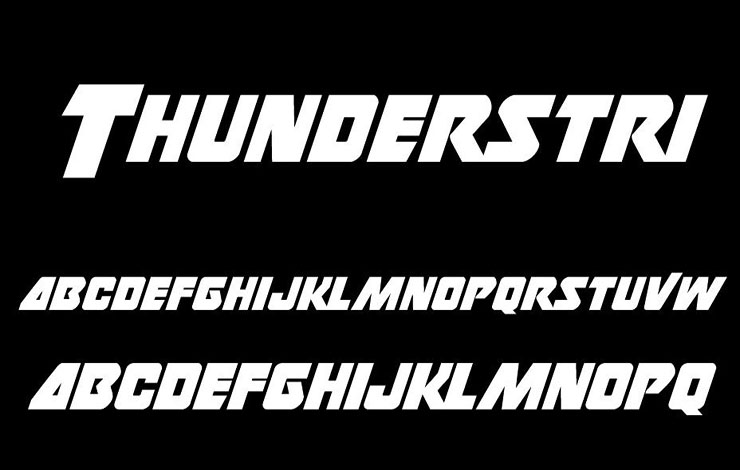
Thunderstrike Font is a popular techno sci-fi typeface designed by Iconian Fonts. It is a versatile font family that comes in eight different styles, making it suitable for a wide range of design projects.
The font’s futuristic and edgy style makes it particularly popular for projects related to science fiction, technology, and gaming.
The font family includes variations such as regular, italic, bold, and bold italic, allowing designers to play around with different combinations and create unique typographic designs.
Moreover, its distinct and sharp lettering creates a bold impact, making it ideal for headlines, logos, posters, banners, body text, and other display purposes.
It is an excellent choice for designers looking for a modern and futuristic typeface that can add a bold impact to their design projects.
You can use this techno typeface for various purposes. For example, creating video titles, designing logos, and headlines, printing on t-shirts, advertisements, social media posters, banners, headers, signs, flyers, brochure layouts, titles, website layouts, templates, printing on business cards, etc.
One of the advantages of this font is its readability, even in smaller font sizes. This makes it an excellent choice for body text in designs such as magazines, books, and brochures.
The font Thunderstrike contains 221 glyphs and 125 binary stored kerning pairs.